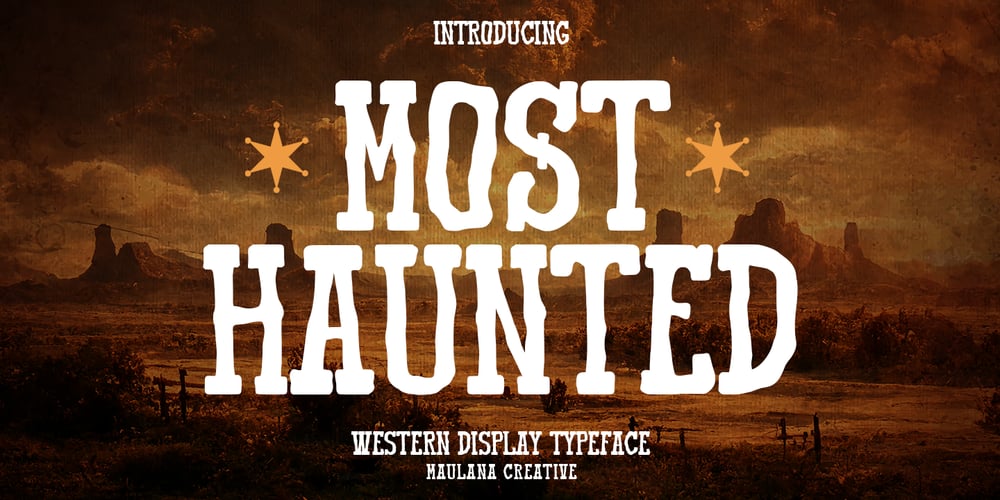
MC Most Haunted
MC Most Haunted font
MC Most Haunted Font Family was designed by Gilang Maulana and published by Maulana Creative. MC Most Haunted contains 1 styles and family package options. Most Haunted is a western display typeface font. Heavy stroke, fun character with a bit of ligatures and alternates. To give you an extra creative work. Most Haunted font support multilingual more than 100+ language. This font is good for logo design, Social media, Movie Titles, Books Titles, a short text even a long text letter and good for your secondary text font with script or serif. Make a stunning work with Most Haunted font. Cheers, Maulana Creative